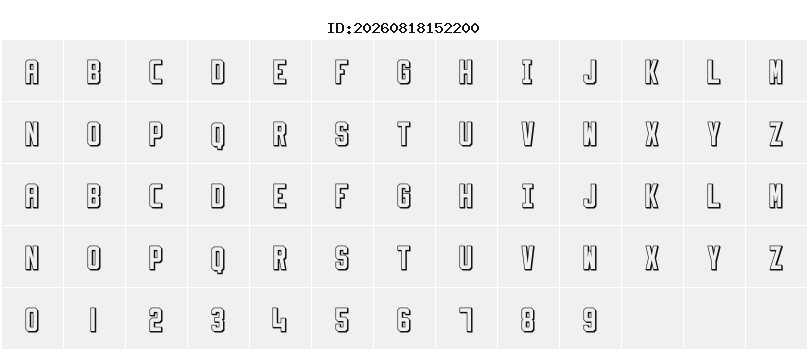
Slimfit Shadowed Preview
• Font Name: Slimfit Shadowed
• Font ID: Slimfit Shadowed:Version 1.00
• Full Font Name: Slimfit Shadowed
• Version: Version 1.00 December 17, 2014, initial release
• PostScript Name: SlimfitShadowed
• Character Count: 203
• Designer: Mehmet Abacı
• Manufacturer: StudioTypo
About Slimfit Shadowed.otf
Slimfit Shadowed.otf is a modern, elegant sans-serif font designed for ultimate readability and visual harmony. Perfect for branding, headlines, web design, and print materials.